Imagine you’re writing a report for school. You use plain, normal writing for most of it, right? But what about the title? You might want something a bit flashier to grab everyone’s attention. That’s where “fancy fonts” come in, also called display fonts.
Here’s why fancy display fonts are super cool for some things:
- Like Fireworks for Your Text: Regular fonts are like talking in a normal voice. Fancy fonts are like fireworks – they light up the page and make people look! They have special shapes, bold styles, or loopy letters that make them stand out.
- Show Off Your Style: Maybe your report is about dinosaurs. You could use a fancy font that looks like a dino’s roar! Fancy fonts come in all sorts of styles, so you can pick one that matches your project perfectly. Fun, fancy, scary, cute – you name it.
- Super Important Stuff Needs Attention: Maybe you have a giant headline in your report. A fancy font can make it super clear that this part is really important, like a big red STOP sign!
- Make People Remember You: If your report has a cool title in a fancy font, your classmates might remember it better. Fancy fonts can help your project stand out from the crowd.
Now, have a look at some of the best display fonts list for your web:
Gitky
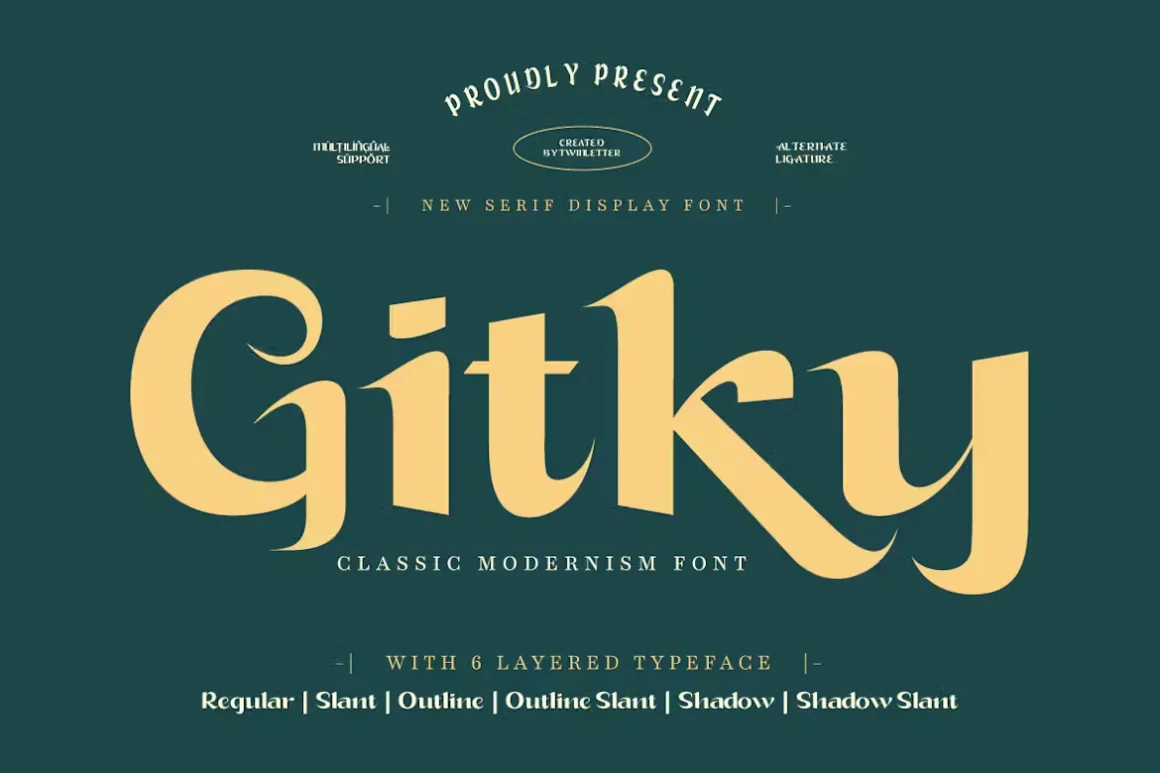
Gitky font is super stylish! Some letters have long tails, like fancy ribbons. This makes your projects look classic and neat, like a well-dressed person. Because the letters are also bold and clear, it’s perfect for anything that needs to look elegant and classy, like a birthday card or a school presentation cover page.
Cloody
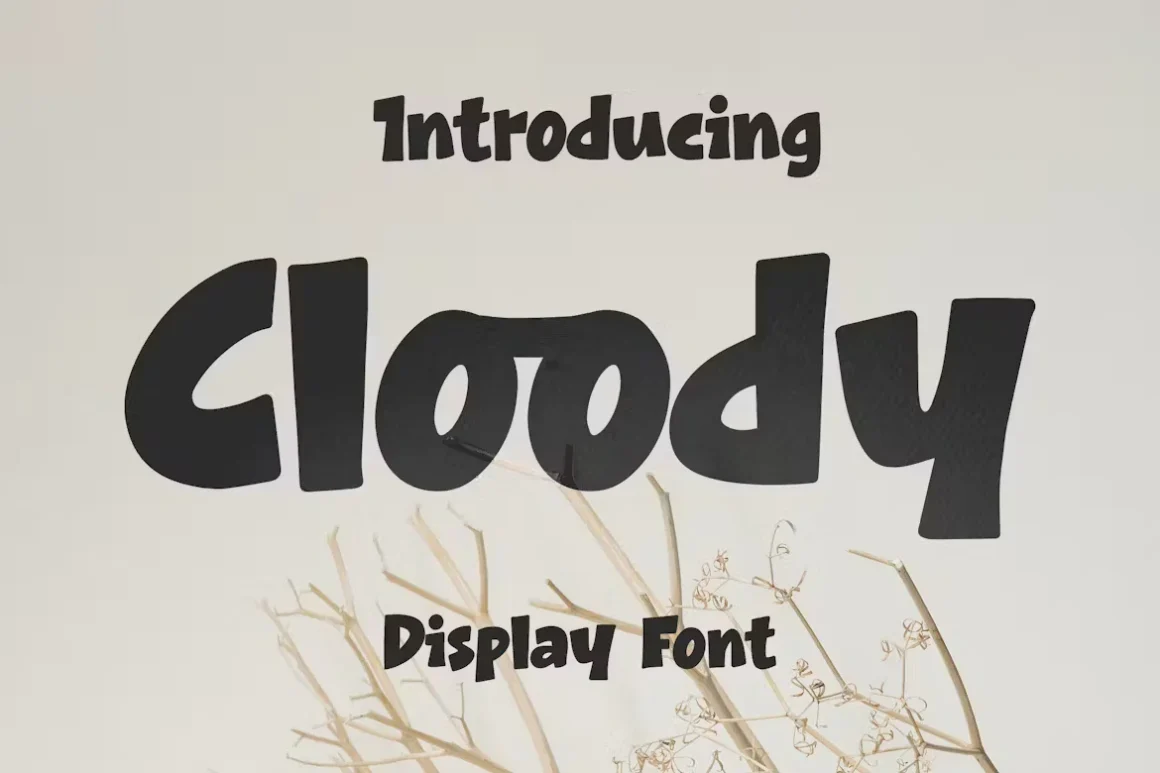
Cloody is a cool display font with both uppercase and lowercase letters and symbols. It can even be written in different languages! It also has lots of special connections between letters and fancy swirls. Some might call them to make your words look extra awesome. This font is perfect for fashion projects, logos, catalogues, or anything else you want to make a standout.
Sernes
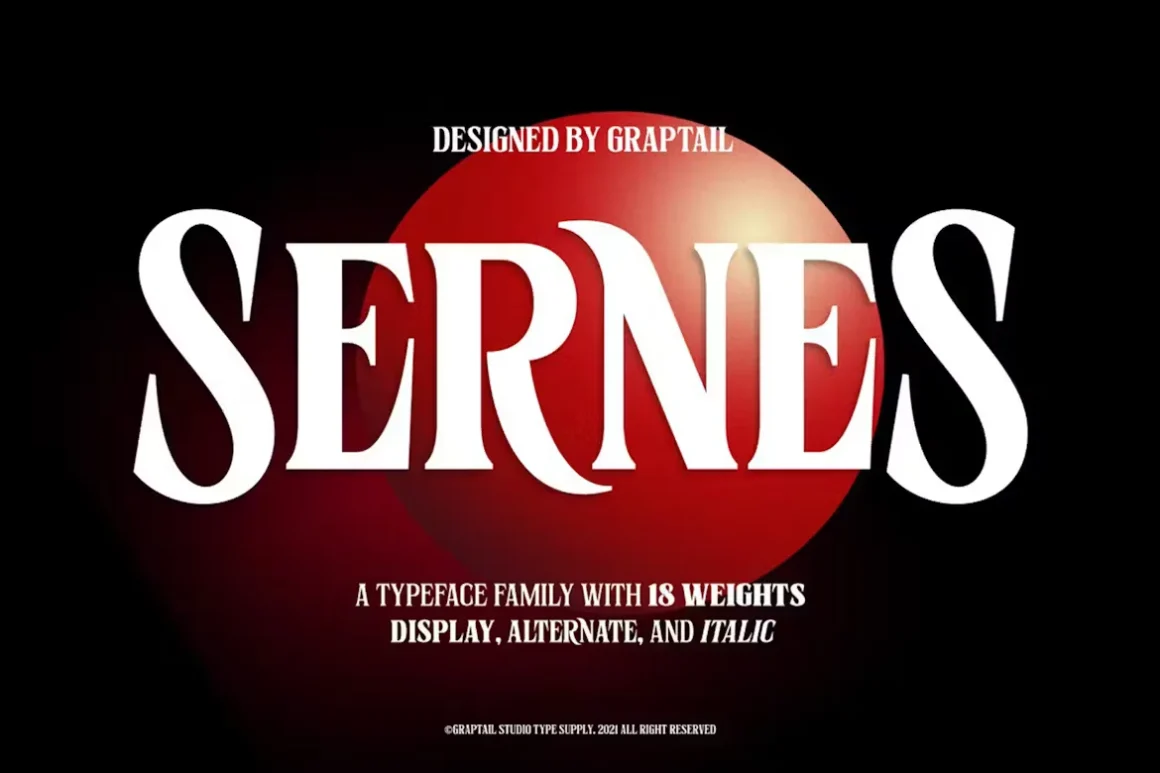
Sernes is a font inspired by the cool letters from the Netflix show “Stranger Things.” The letters in Sernes are squished together a bit, which is kind of like how the letters look in the show. This font also has a whole bunch of different styles, 18 in total! There are fancy styles for titles (display weights), different versions of some letters (alternate weights), and even a slanting style (italic weights).
Whitefish
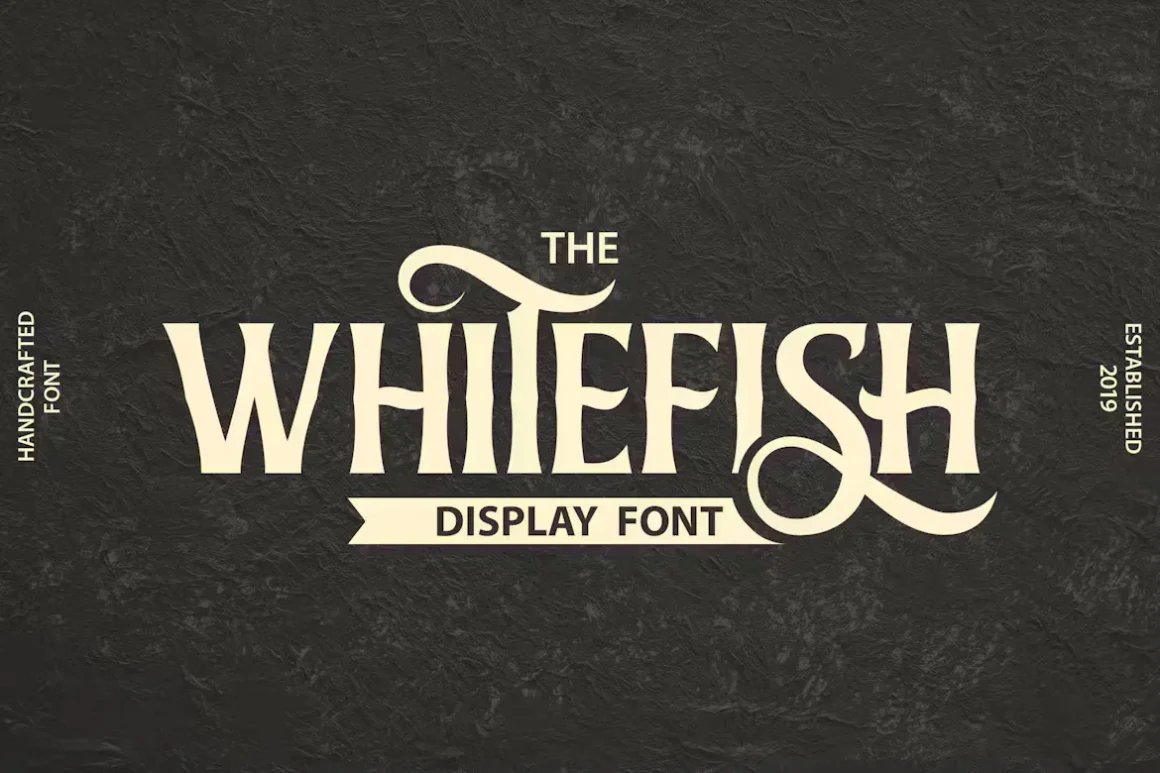
Check out Whitefish! It’s a cool font that looks like fancy handwriting. This font is perfect for invitations, greeting cards, and anything you want to look extra special – like posters, business cards, quotes, and even your own designs!
Fortusnova
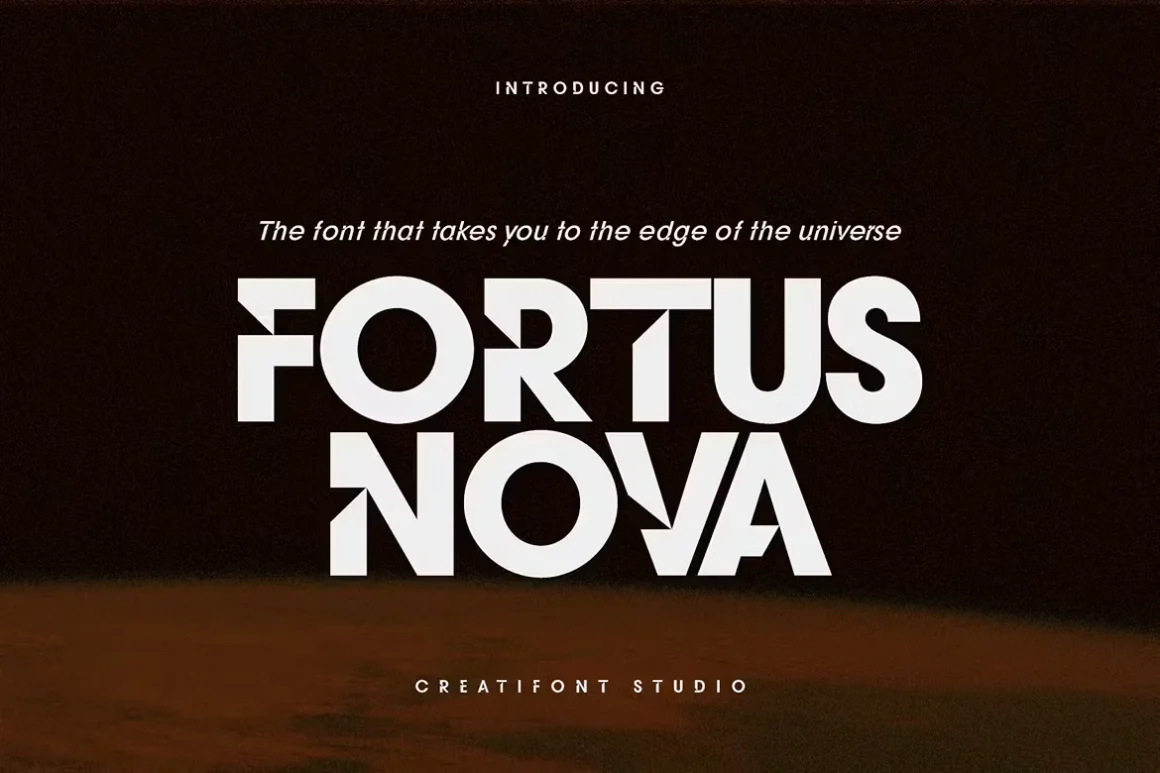
Fortusnova is a fancy, modern font that breaks the rules! It has a special feature – a tiny cut in each letter. This makes the font look sharp and edgy, like something from the future! Because of this special cut, the letters are extra clear and bold, and they really stand out on the page.
Krick
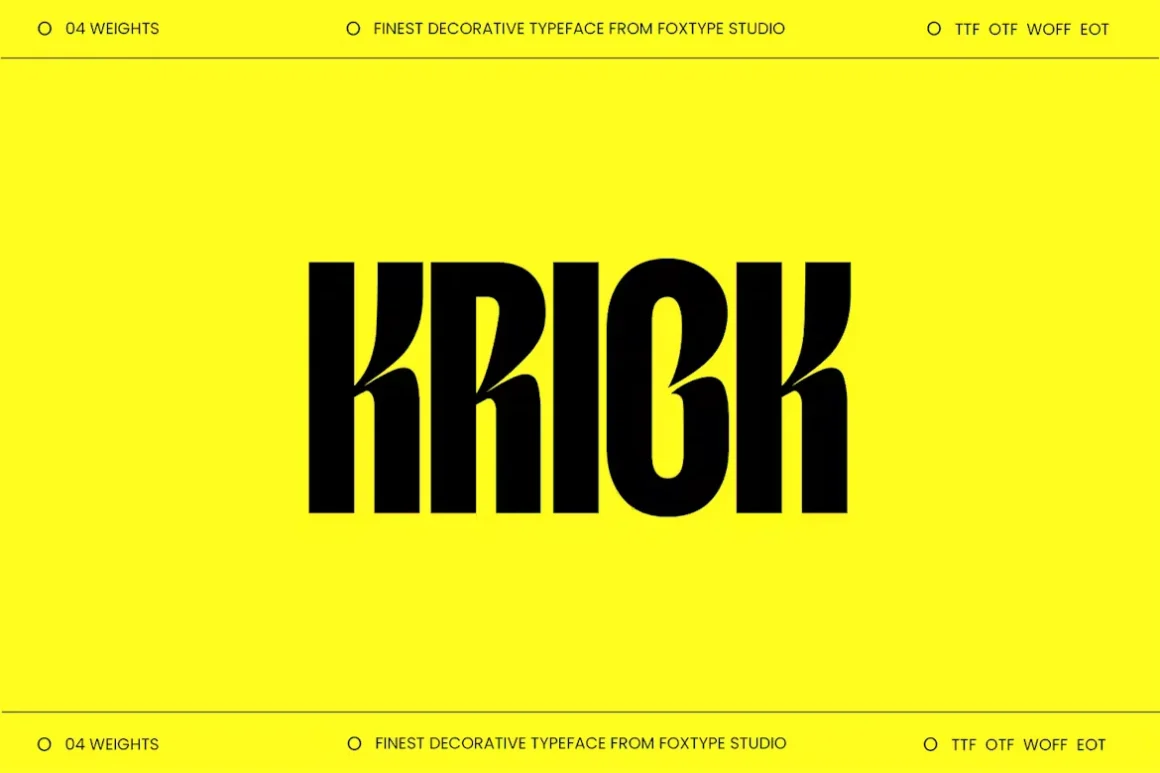
This cool font was designed to make people notice your brand. The designers put a lot of thought and even used math to make sure every tiny detail of the font looks its best.
Katalist
KataList Urban is a cool font that looks strong and bold, kind of like building blocks! This font is perfect for big signs, titles, and projects that want to show power or movement. Imagine using it for a cool poster about skateboarding or a strong message about teamwork! It can also be used for things like church events, sports team logos, or even jersey numbers.
Fadetho
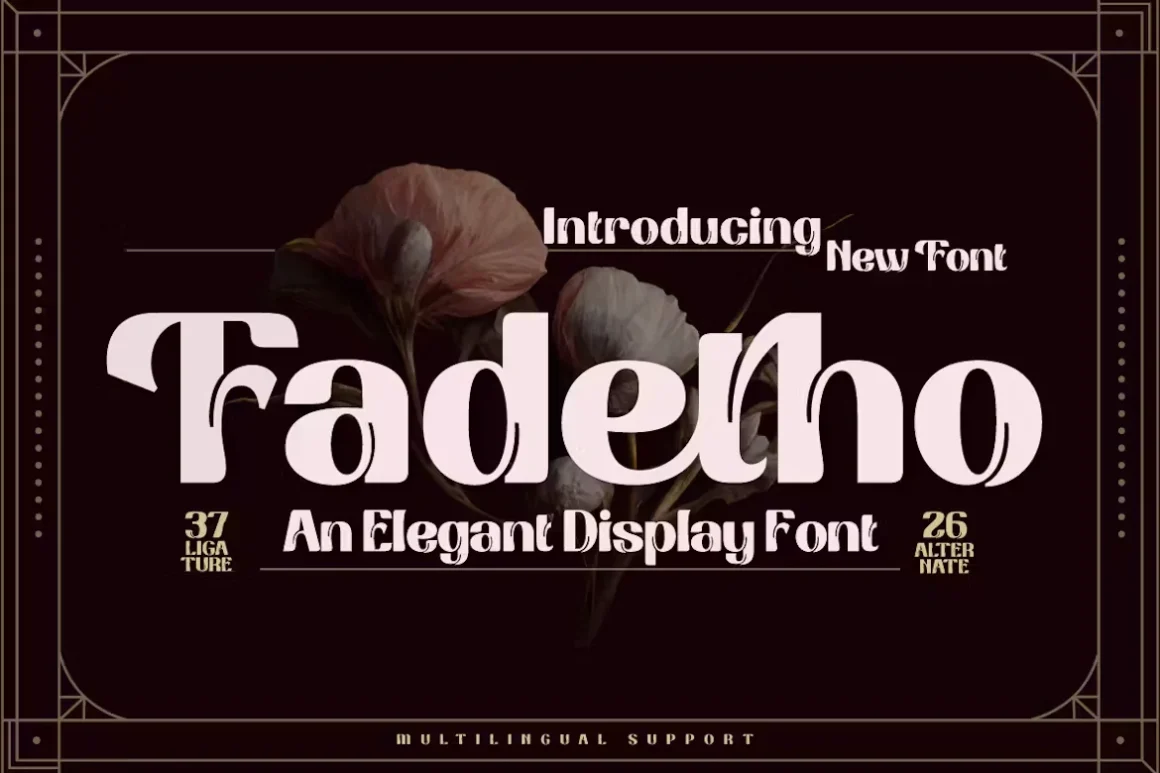
This cool new font will make your projects look amazing! It’s like a fancy outfit for your words – relaxed, elegant, and perfect for anything creative you’re making.
Irone
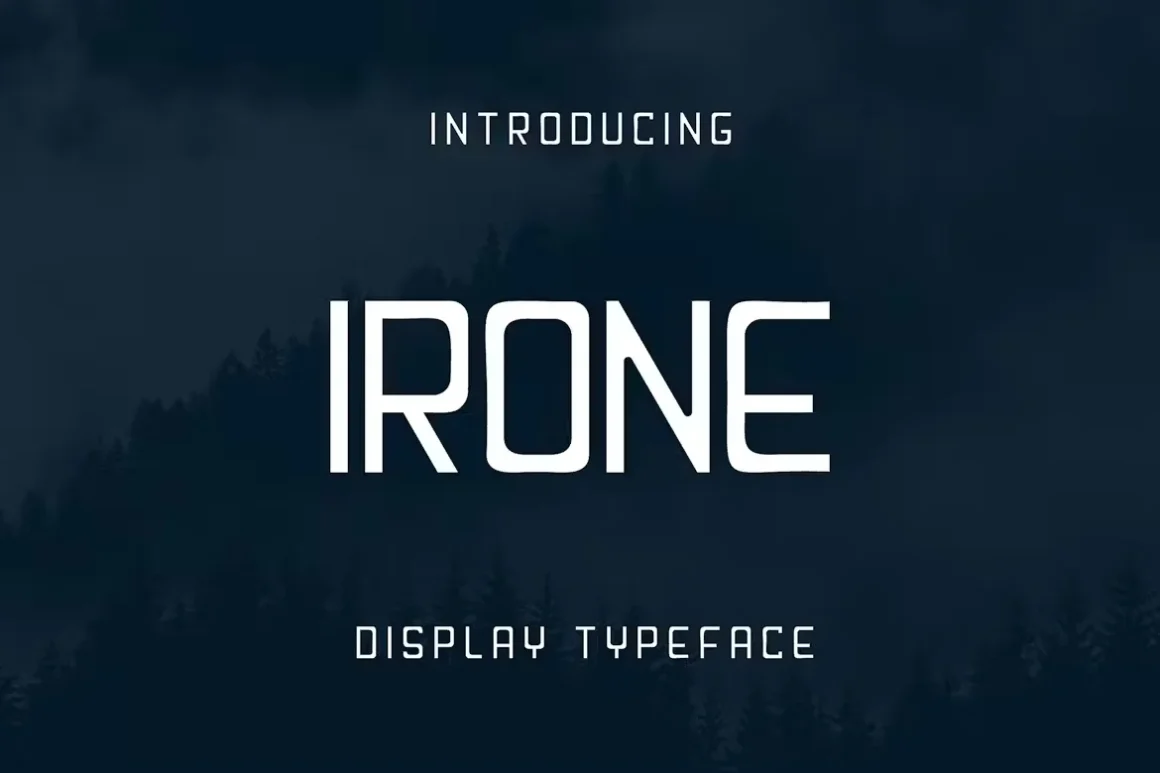
Irone Display Font is super fun for lots of things! You can use it to make cool posters for your room, eye-catching posts on social media, or even create a special logo for your lemonade stand. It’s also great for any project you want to make look awesome.
Giovani Equine
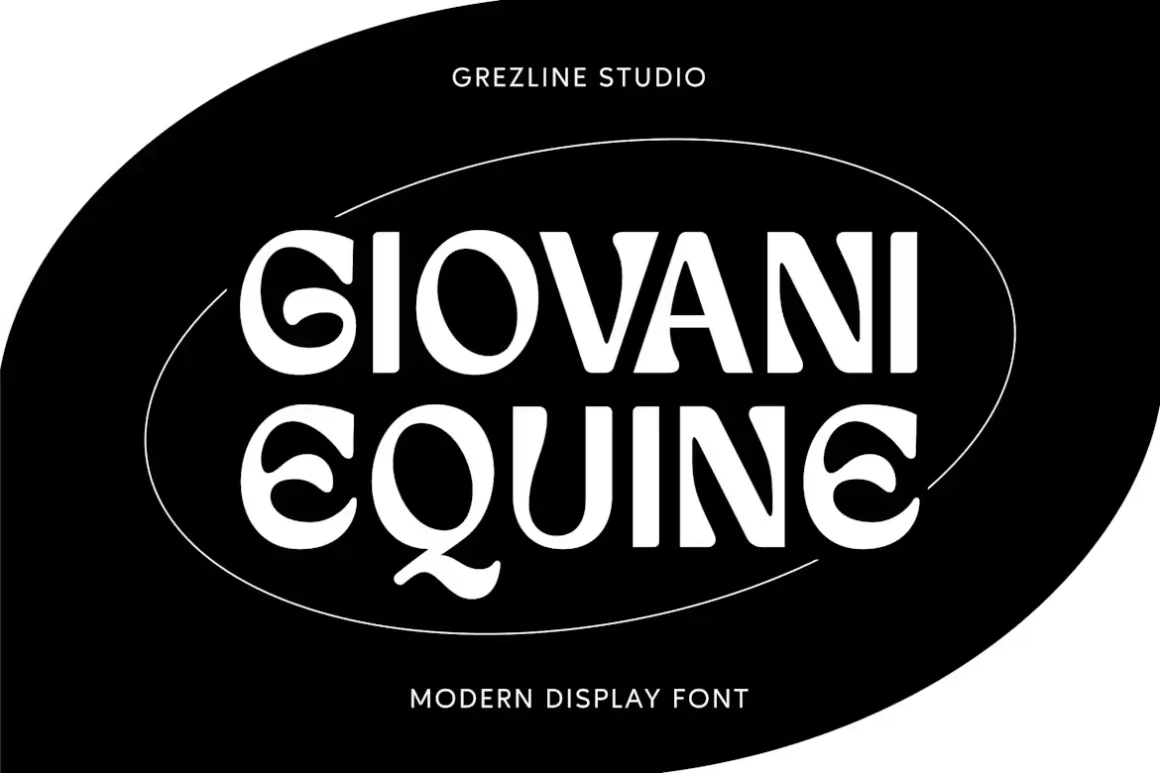
Giovani Equine is a super cool, modern font that looks different from others. It’s perfect for things you want to look awesome, like logos, posters, boxes (packaging), banners, and anything else you want to make creative and eye-catching.
Conclusion:
So, next time you’re making a poster, presentation, or even a super cool report title, remember fancy display fonts! They can make your project pop and showcase your creativity.